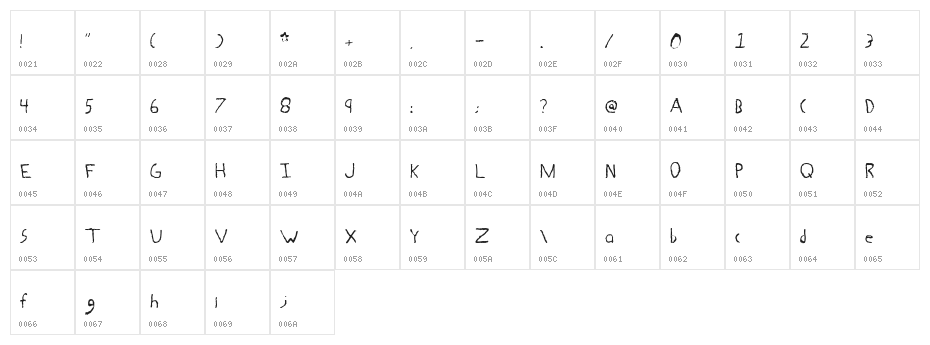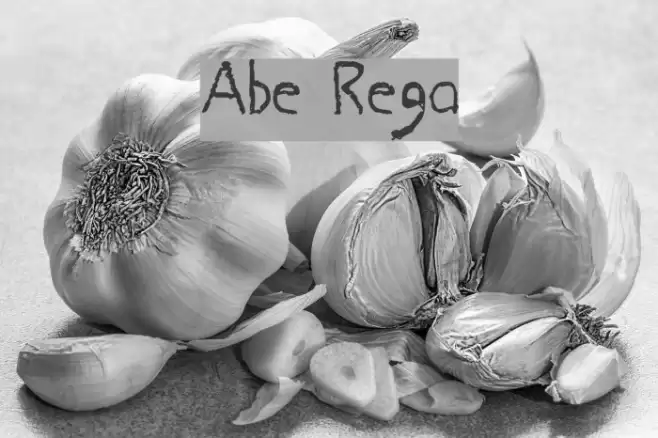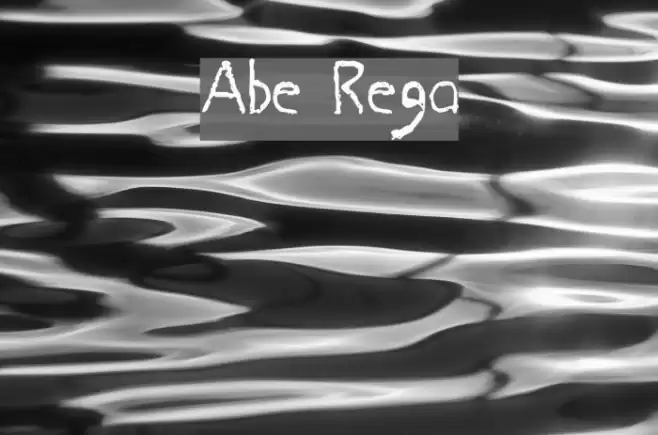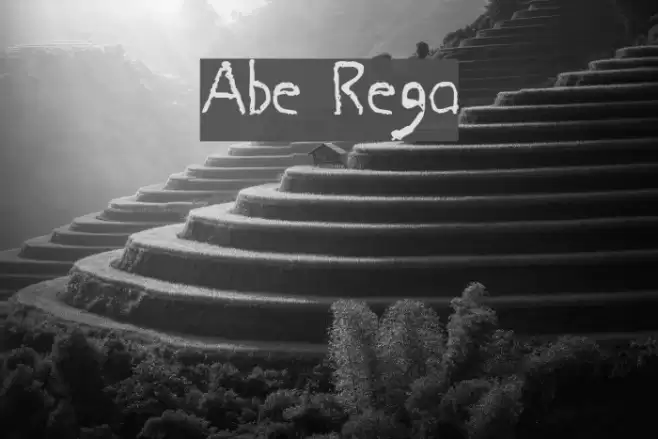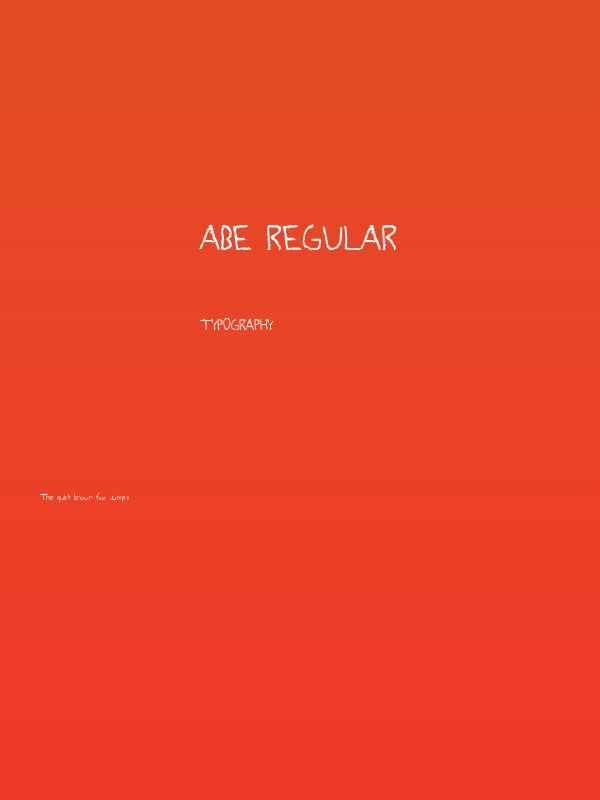
Abe Regular Font
Abe Regular Description
This font exhibits a playful and organic style, characterized by its irregular, hand-drawn appearance. The letters have a rough, textured edge, giving them a casual and artistic feel. The uppercase and lowercase letters maintain a consistent style, with slight variations that add to the font's charm. The numerals and special characters follow the same design principles, ensuring a cohesive look across all glyphs. This font is ideal for projects that require a personal touch, such as invitations, greeting cards, or creative branding materials.
| Proposed Projects | Ideal for invitations, greeting cards, creative branding, and artistic projects. |